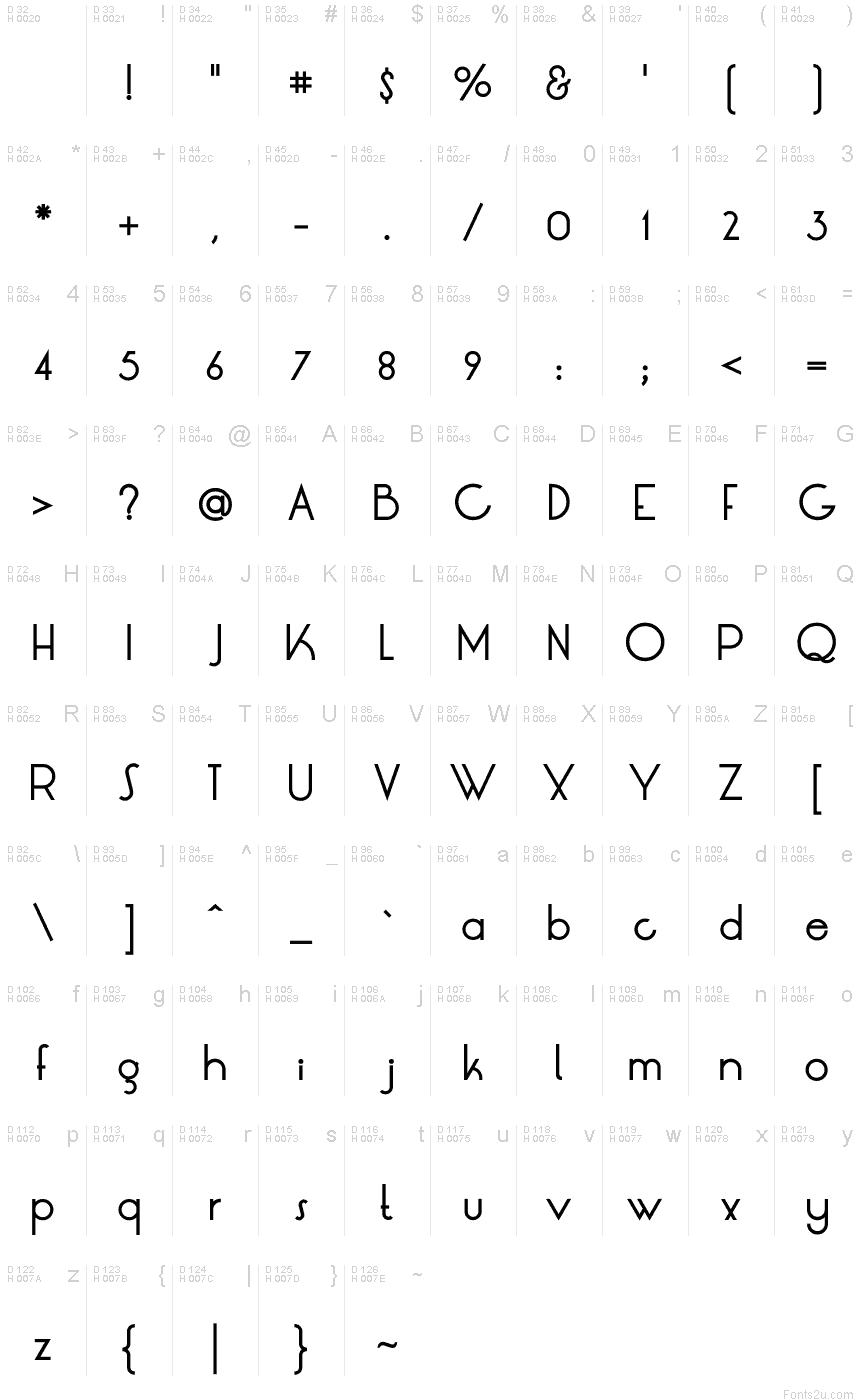
LT Oksana Bold by Lauren Thompson is a free geometric sans serif with slim, clean strokes and an unusually playful build. Large circles sit beside tall, narrow forms, producing a loose contrast of scale. Changing widths and gently irregular curves keep the geometry from feeling mechanical.
It can turn a logo into a loose geometric drawing. That quality also suits arts posters, contemporary packaging, and editorial covers, particularly for independent labels and creative studios seeking an informal alternative to polished corporate lettering.
Original geometric design by Lauren Thompson, first created in 2008. The "deco" midlines and unconventional dotted letter positions as well as the almost vertical slant of the 's' give this font what has been described as a "retro" theme and add to the uniqueness of the typeface.
Version 4.00 updated kerning, letter spacing, some characters underwent minor changes to their design.